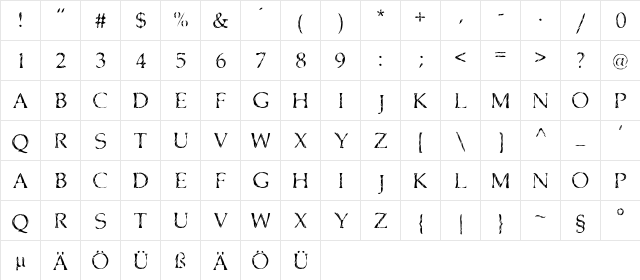
Cone Of Silence Regular
| Foundry | elspiko |
Design Context for Cone Of Silence Typeface
Cone Of Silence takes a measured approach to typography — its balanced proportions and neutral character make it a reliable workhorse for both digital and print work.